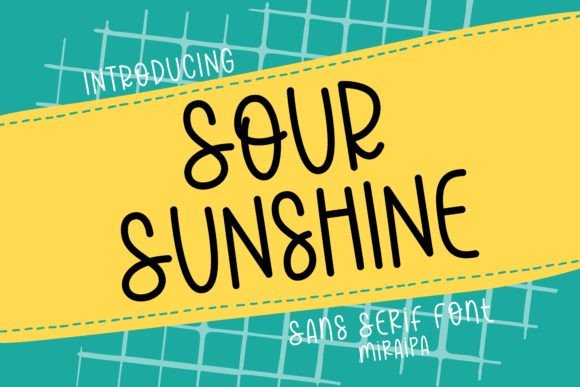
Prepare to be smitten by Sour Sunshine, the font that will ignite your creativity and make your designs shine. Its chic and approachable handwritten style is perfect for creating heartfelt wedding invitations that will leave a lasting impression on your guests.
Whether you're a seasoned designer or just starting your journey, Sour Sunshine is your perfect companion. Its versatility makes it a go-to choice for a wide range of projects, from elegant digital designs to eye-catching presentations. Let the free-flowing curves and charming personality of Sour Sunshine captivate your audience and add a touch of warmth to your creations.
With Sour Sunshine, the possibilities are endless. It's the perfect choice for adding a touch of whimsy to your greeting cards, creating eye-catching logos, or crafting stunning social media graphics. So, why wait? Dive into the world of Sour Sunshine today and unleash your limitless creativity!